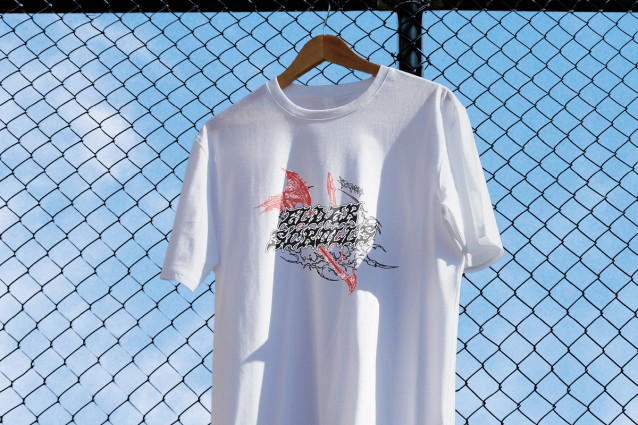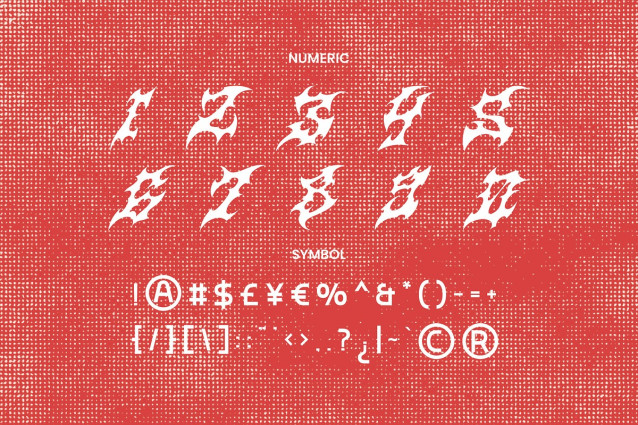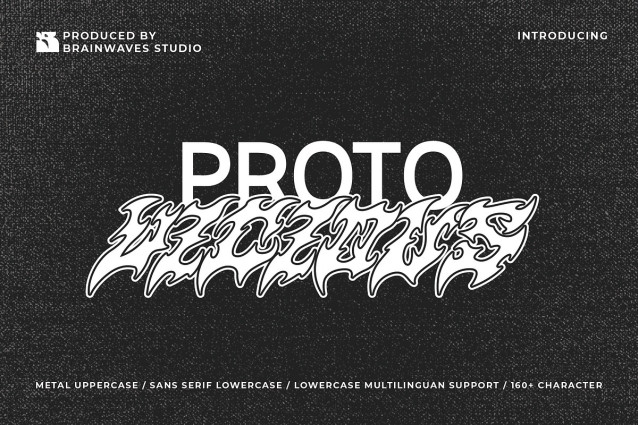
Proto Vicious Font
Proto Vicious Font, a font that breaks all the rules. It’s the ultimate statement-maker for designers who want to stand out. This isn’t just one font; it’s a powerful combination of two styles in one package.
Imagine an aggressive, jagged uppercase font perfect for high-impact logos and headlines, instantly grabbing attention with its sharp, metal-inspired style. Then, picture a clean, modern sans-serif for the lowercase letters, making your body text effortless to read. This unique duality gives you incredible versatility, so you can go from edgy and loud to sleek and professional without ever switching fonts.
Perfect for brands that blend chaos and cool, this font is a designer’s secret weapon for streetwear, album art, event posters, and more. Stop blending in and start making an impact.